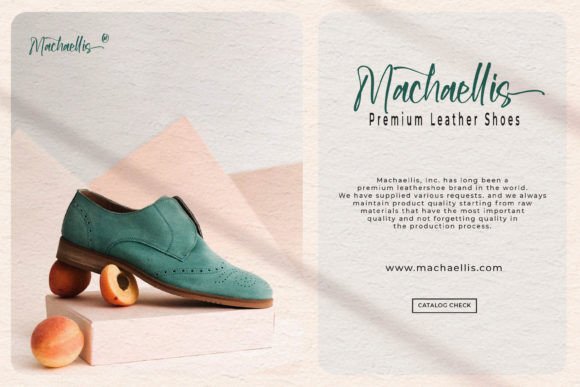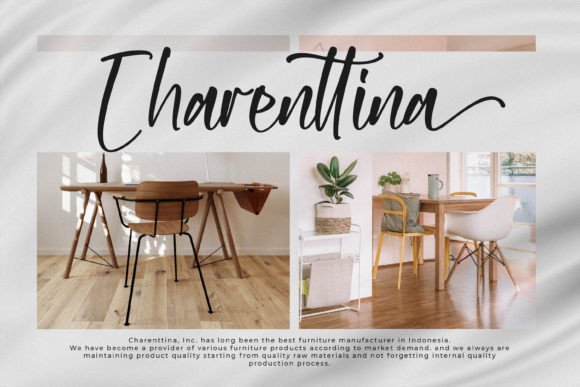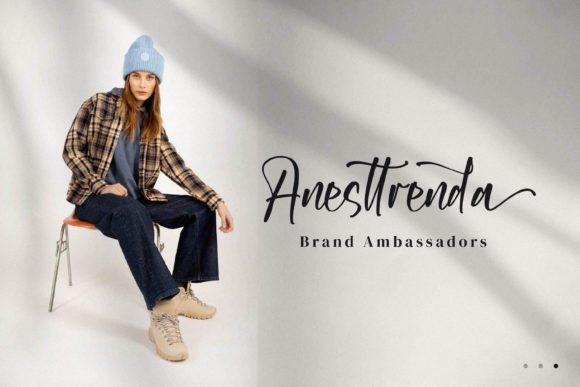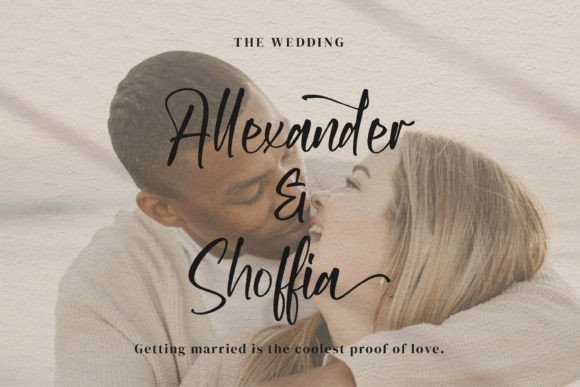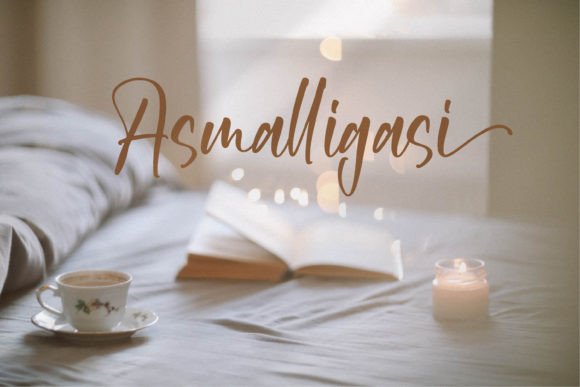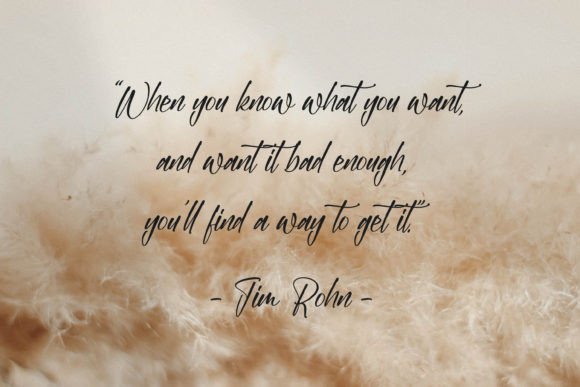
Aksarantti Font: Elevate Your Designs with a Timeless Handwritten Style
In the world of typography, a well-chosen font can make all the difference in creating visually stunning designs. For designers and crafters looking to add a touch of elegance and personality to their projects, Aksarantti font is an excellent choice. This lovely and timeless handwritten font is perfect for creating eye-catching logos, branding, and quotes that stand out from the crowd.
The Unique Charm of Aksarantti Font
What sets Aksarantti font apart is its distinctive and beautiful touch. Every letter has been carefully crafted to showcase a unique character, making it a perfect choice for designers seeking to add a personal touch to their work. Whether you’re creating a logo, branding materials, or inspirational quotes, Aksarantti font brings a level of sophistication and charm that elevates your designs to the next level.
Why Choose Aksarantti Font?
Here are several reasons why Aksarantti font should be your go-to choice for your design projects:
- Timeless Appeal: Unlike trendy fonts that may quickly go out of style, Aksarantti font boasts a timeless quality that ensures your designs remain relevant and stylish for years to come.
- Versatility: Aksarantti font is incredibly versatile, making it suitable for a wide range of design applications, from elegant logos and branding to beautiful quotes and creative crafts.
- Unique Character: The font’s unique and handcrafted feel adds a personal touch to your designs, setting them apart from more generic and overused fonts.
- Ease of Use: Aksarantti font is easy to read and works well in various sizes, making it a practical choice for both digital and print designs.
Applications of Aksarantti Font
Aksarantti font’s versatility makes it suitable for a variety of design projects. Here are some of the best ways to use this beautiful font:
- Logo Design: Create memorable and impactful logos that capture the essence of your brand with Aksarantti font.
- Branding Materials: Use Aksarantti font in your branding materials, such as business cards, letterheads, and packaging, to maintain a consistent and elegant look.
- Quotes and Typography: Add a touch of elegance to inspirational quotes, posters, and typographic artworks with Aksarantti font’s beautiful handwritten style.
- Digital and Print Media: Aksarantti font works well in both digital media, such as websites and social media graphics, and print media, including brochures, flyers, and magazines.
- Crafts and DIY Projects: For crafters and DIY enthusiasts, Aksarantti font can be used in various craft projects, such as handmade cards, scrapbooking, and personalized gifts.
Tips for Using Aksarantti Font Effectively
To get the most out of Aksarantti font, consider the following tips:
- Pair with Complementary Fonts: When using Aksarantti font in combination with other fonts, choose fonts that complement its elegant and handwritten style.
- Adjust Letter Spacing: For better readability, especially in larger bodies of text, adjust the letter spacing to ensure a comfortable and aesthetically pleasing look.
- Experiment with Colors: Aksarantti font looks great in various colors. Experiment with different color schemes to find the one that best suits your design.
Aksarantti font is a beautiful and timeless handwritten font that can elevate your designs with its unique and elegant style. Whether you’re a professional designer or a crafty DIY enthusiast, Aksarantti font offers the versatility and charm needed to create stunning logos, branding materials, quotes, and more. With its timeless appeal, ease of use, and unique character, Aksarantti font is an excellent addition to any designer’s toolkit.